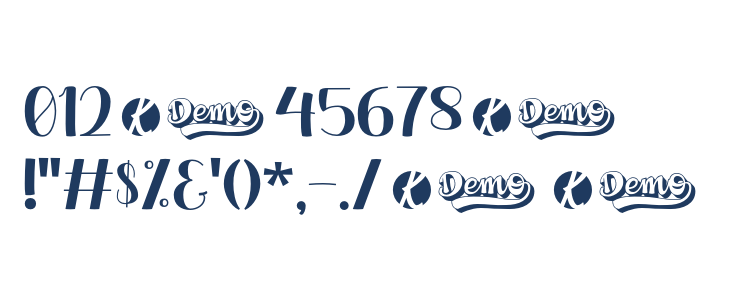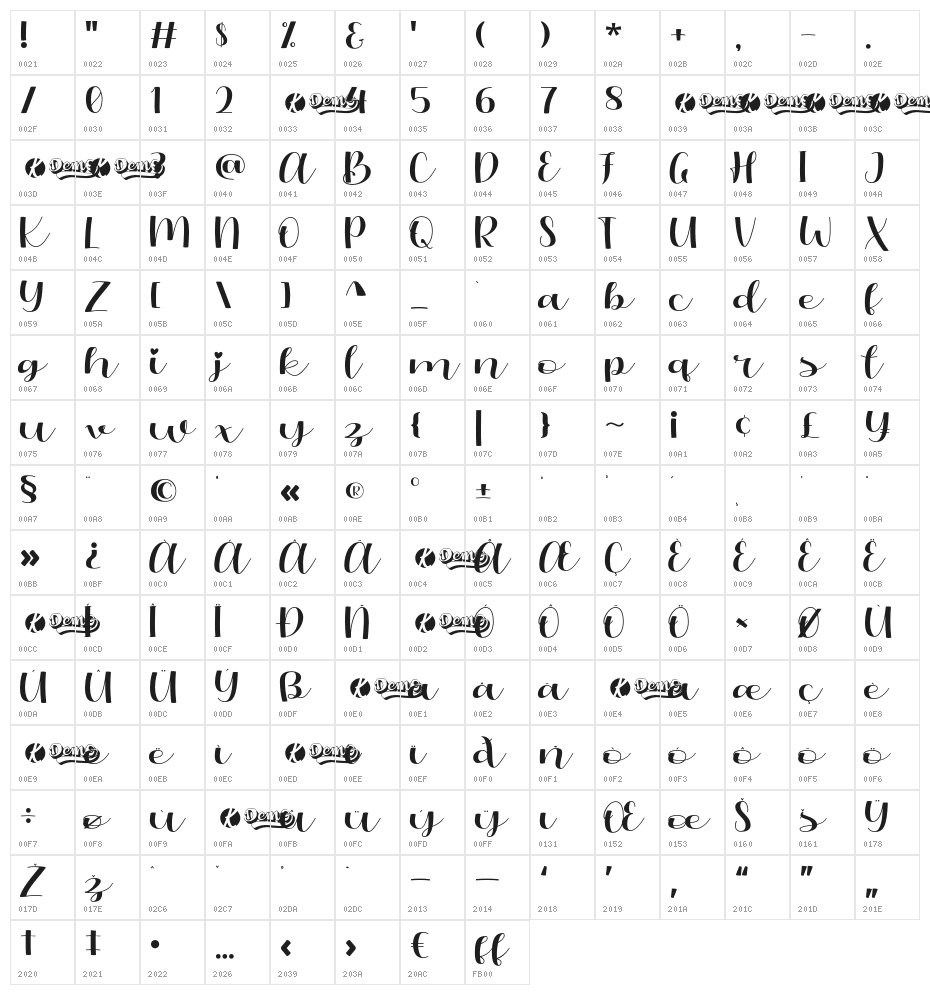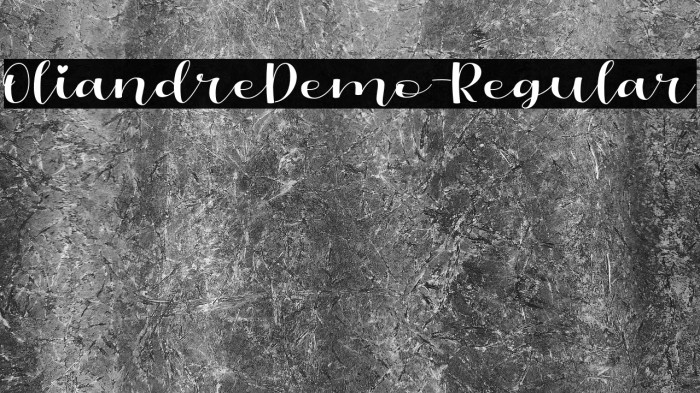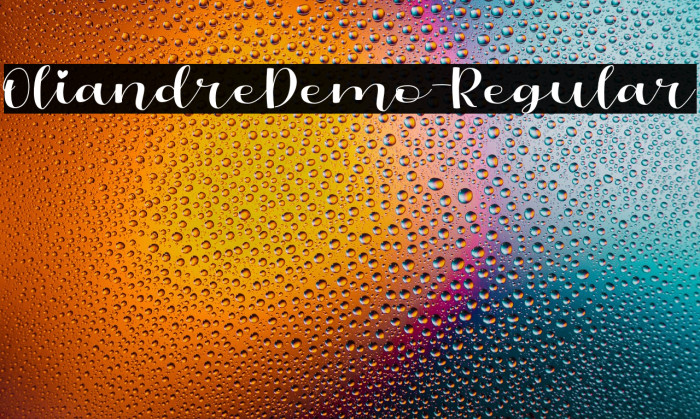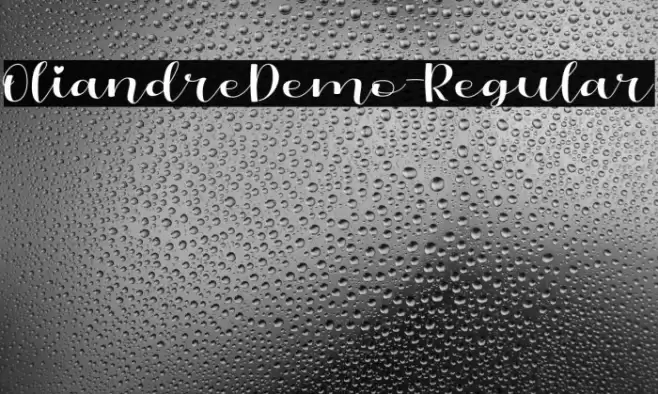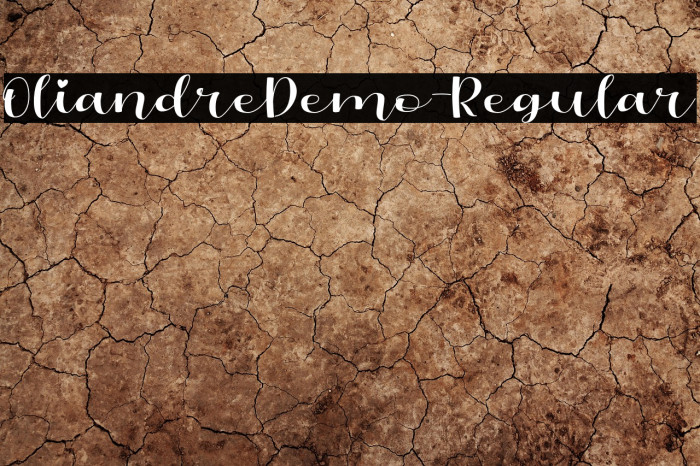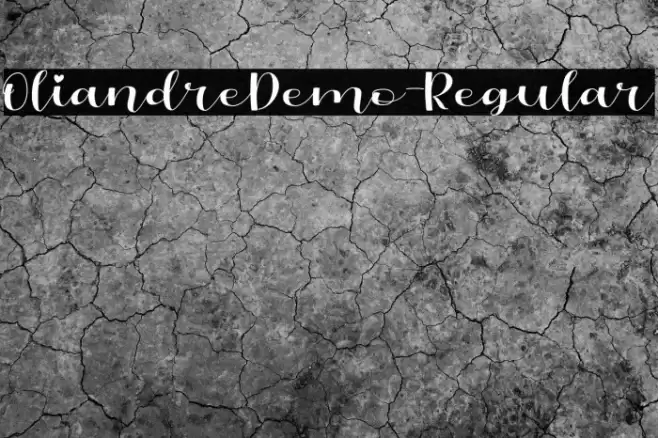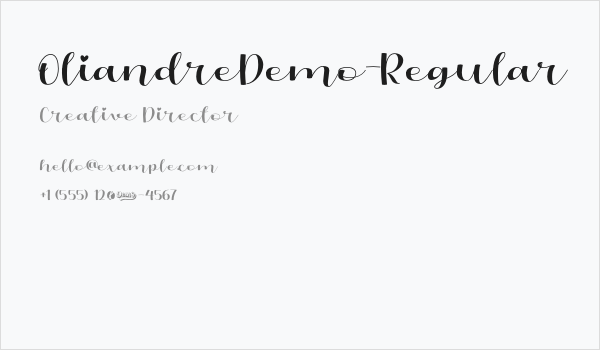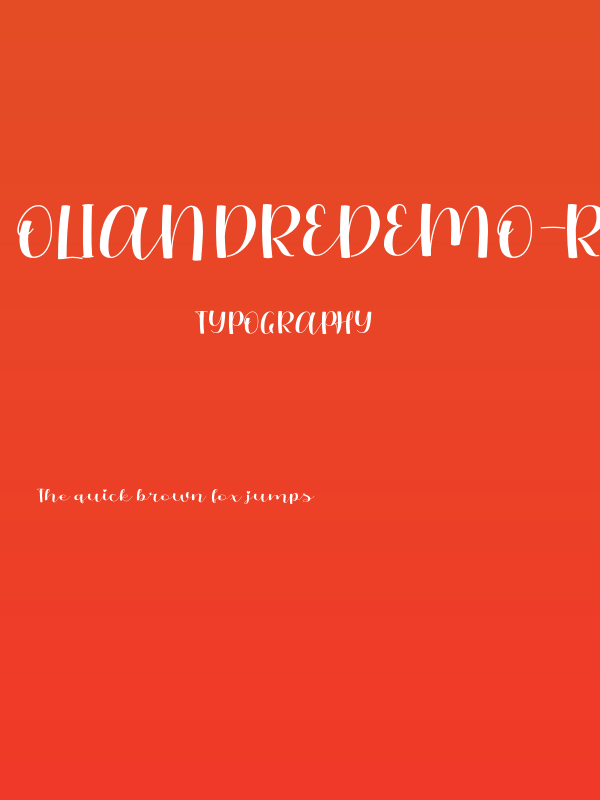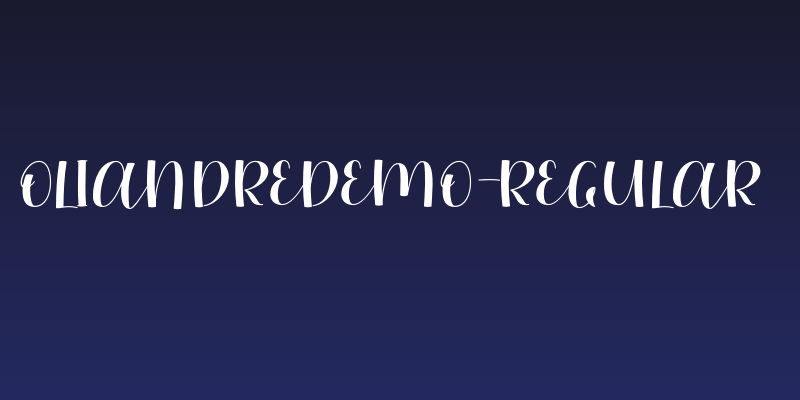
OliandreDemo-Regular Font
OliandreDemo-Regular Description
This font features a decorative and elegant script style with a modern twist. The uppercase letters are bold and flowing, with unique flourishes that add a touch of sophistication. The lowercase letters maintain a consistent fluidity, enhancing the overall graceful appearance. Numbers and special characters are designed with the same attention to detail, ensuring a cohesive look across all elements. The font's playful yet refined aesthetic makes it suitable for a variety of creative applications.
| Proposed Projects | Ideal for wedding invitations, branding, logo design, and elegant packaging. |